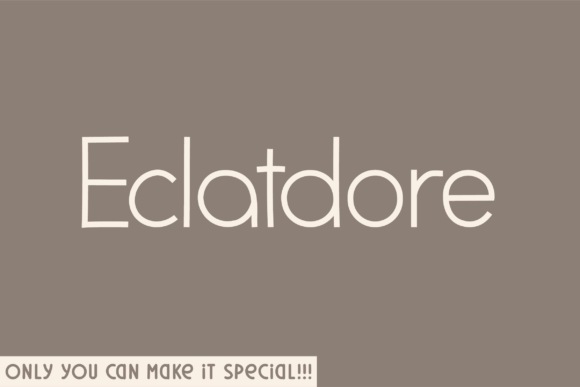
Introducing Eclatdore Font: Elevate Your Designs with Elegant Simplicity
In the world of typography, a font can make all the difference in creating a lasting impression. For designers and crafters seeking a unique and elegant sans serif font, look no further than Eclatdore. This meticulously handcrafted font combines the artistic aesthetics of hand-drawn characters with the precision of professional typography, offering a delightful balance of style and functionality.
The Art of Elegant Simplicity
Eclatdore’s design is rooted in the concept of elegant simplicity. Its clean lines, precise curves, and distinctive finish at each letter’s end lend a pleasing yet assertive character to the font. This unique feature sets Eclatdore apart from other sans serif fonts, making it an excellent choice for designers seeking to add a touch of sophistication to their work.
One of the standout features of Eclatdore is its comprehensive character set, which includes uppercase and lowercase letters, numbers, and functionally rich letters. This extensive range of characters allows designers to experiment with various typography styles, ensuring that their work stands out in any design environment.
Universal Appeal
Eclatdore’s universal appeal lies in its versatility. Whether you’re working on a branding project, website design, or crafting a marketing campaign, this font adapts seamlessly to any design environment. Its elegant simplicity and distinctive character make it an excellent choice for creating eminently memorable impressions.
From business cards to billboards, Eclatdore’s crisp and clean lines ensure that your message is conveyed with clarity and style. Its professional typography makes it suitable for a wide range of applications, including:
- Website design and development
- Marketing and advertising campaigns
- Print materials, such as brochures and flyers
What Sets Eclatdore Apart
So, what makes Eclatdore a standout font in the world of typography? Here are a few key features that set it apart:
- Meticulous handcrafting: Each letter has been carefully crafted to ensure a unique and elegant aesthetic.
- Distinctive finish: The font’s distinctive finish at each letter’s end adds a touch of sophistication and character.
- Comprehensive character set: Eclatdore includes a wide range of characters, making it versatile and adaptable.
- Professional typography: The font’s precision and clarity make it suitable for a wide range of applications.
With Eclatdore, designers and crafters can elevate their work to new heights. Whether you’re seeking to create a lasting impression or simply want to add a touch of elegance to your designs, this font is the perfect partner.
In conclusion, Eclatdore is a game-changing font that offers a unique blend of elegance, simplicity, and functionality. Its meticulous handcrafting, distinctive finish, and comprehensive character set make it an excellent choice for designers and crafters seeking to create standout originality.